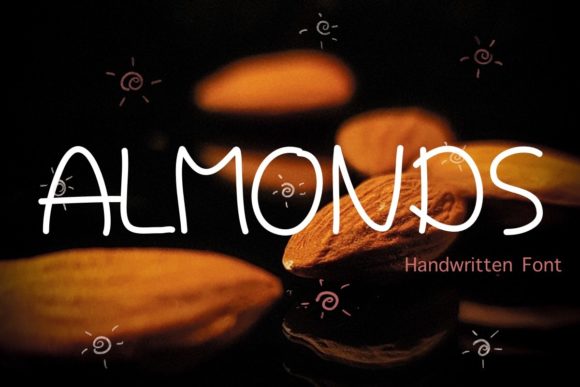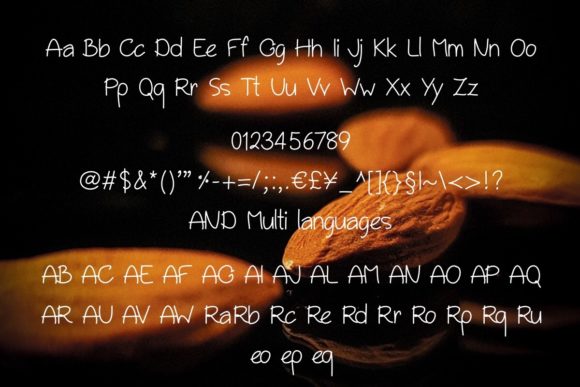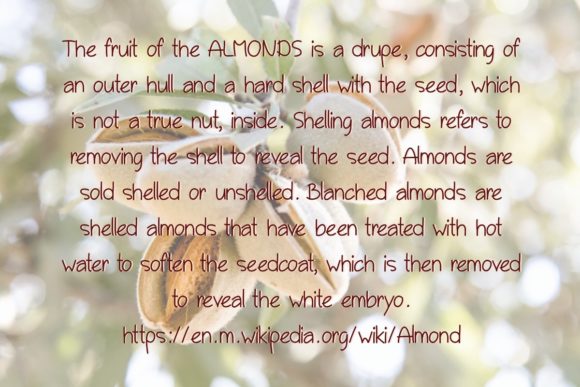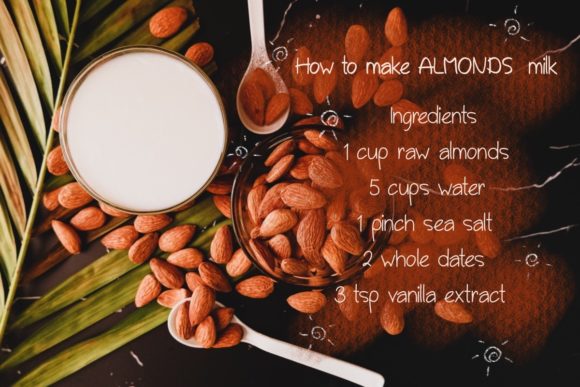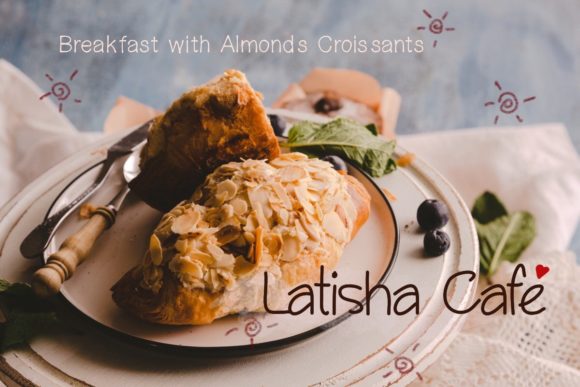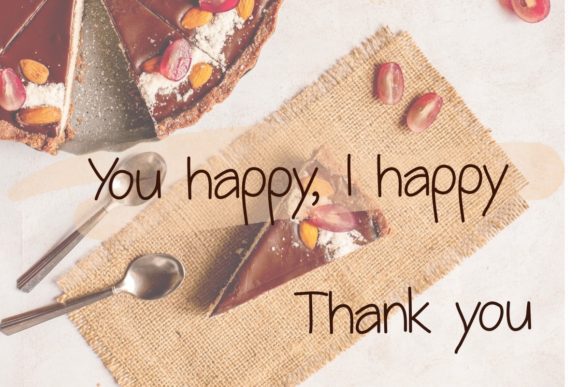
Almonds Font
About Almonds Font
Almonds is a clean and simple lettered handwritten font. Whatever the topic, this font will be a wonderful asset to your font library, as it has the potential to enhance any creation.